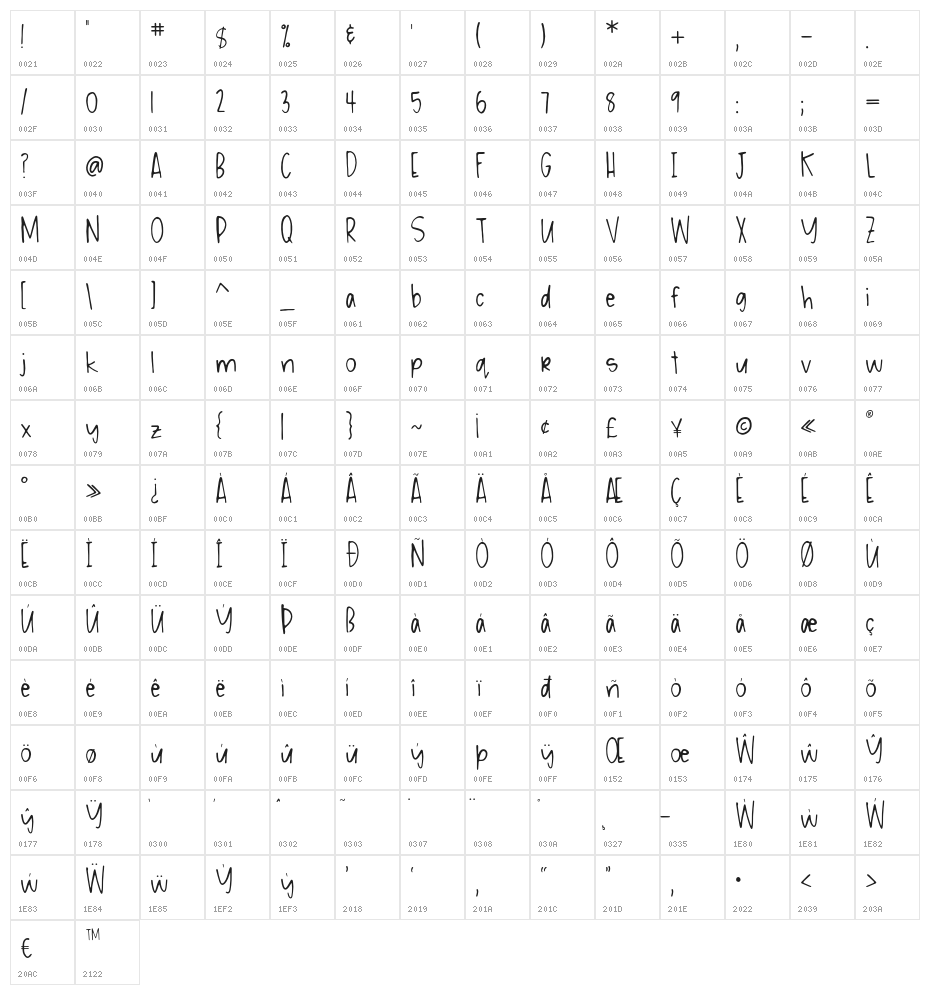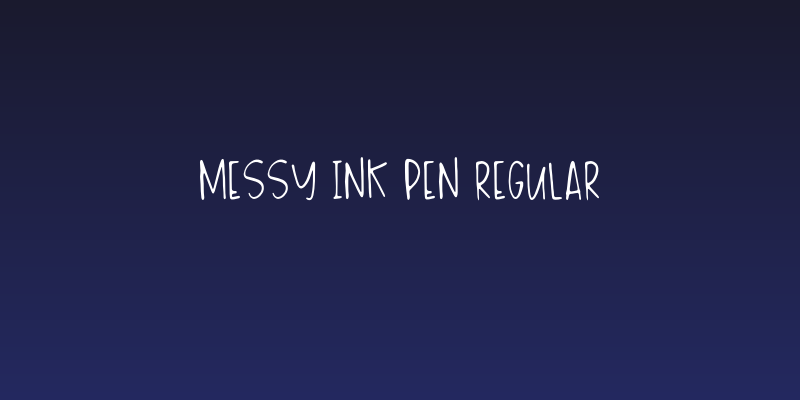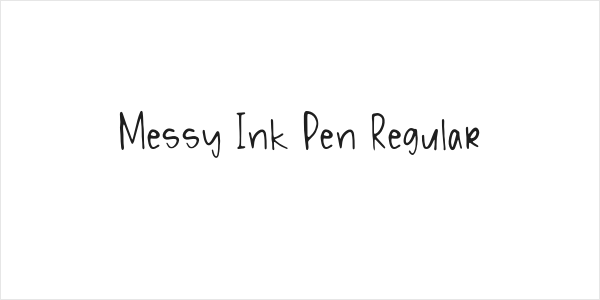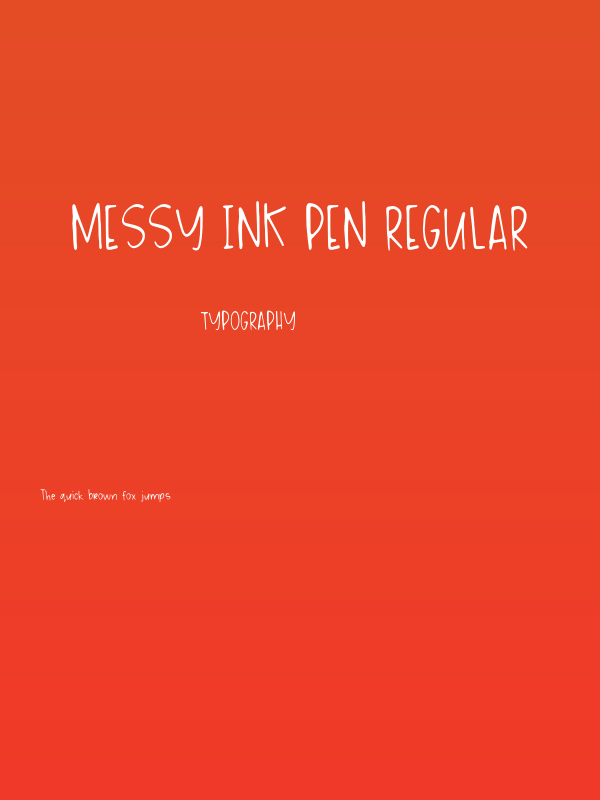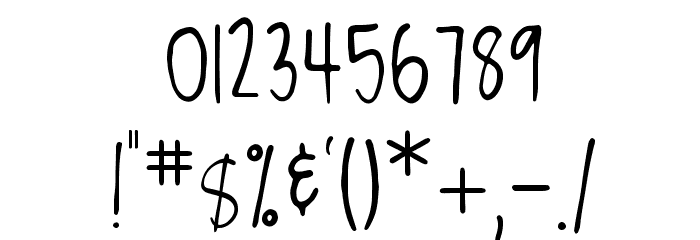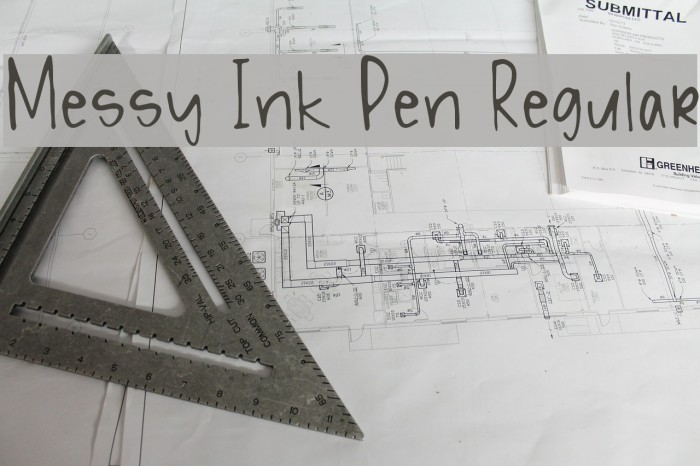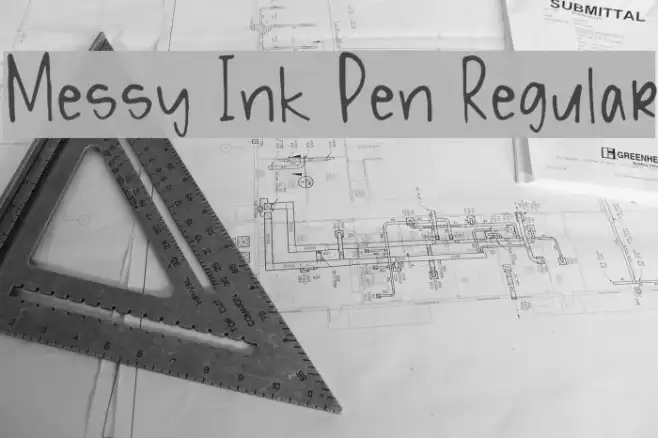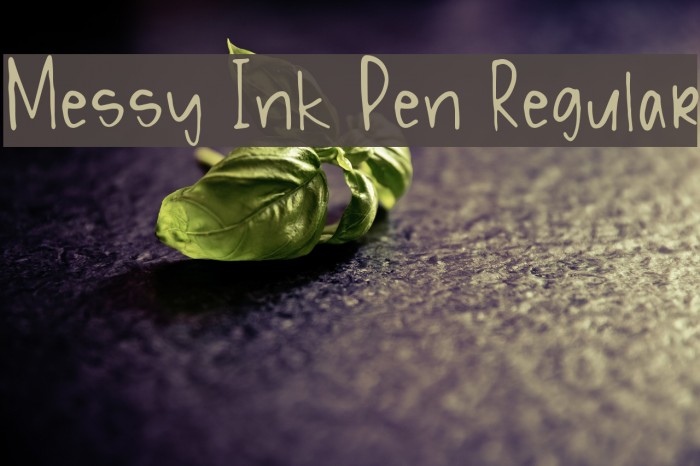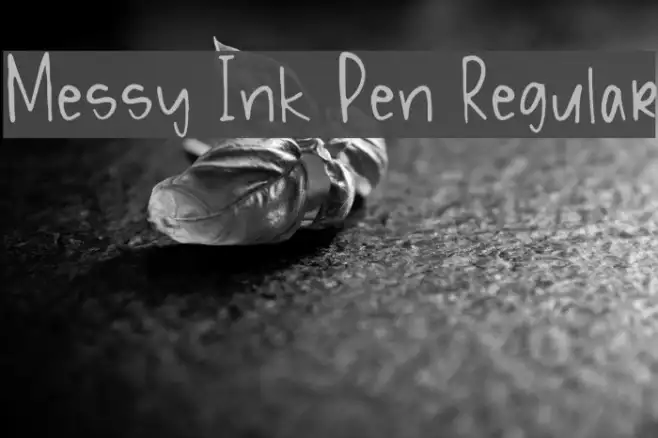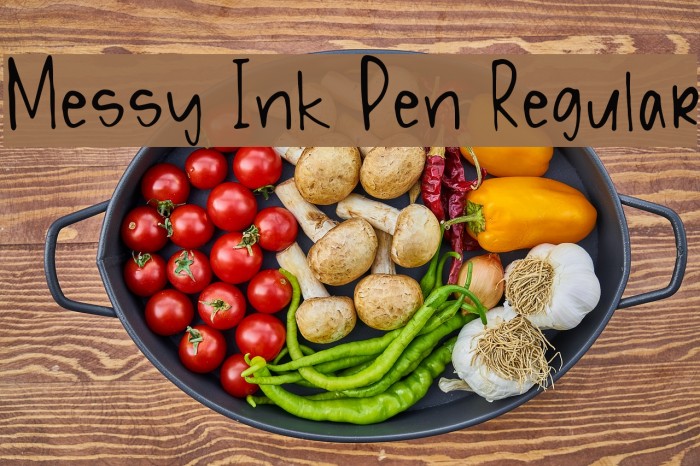
Messy Ink Pen Regular Font
Messy Ink Pen Regular Description
This font exudes a playful and informal vibe, reminiscent of handwritten notes with a slightly messy ink pen style. The characters are irregular and quirky, with varying stroke widths that give it a lively and dynamic appearance. The uppercase letters are tall and narrow, while the lowercase letters maintain a consistent height, adding to the casual feel. Numbers and special characters follow the same whimsical design, making the font suitable for creative and informal projects. The overall look is approachable and friendly, perfect for conveying a sense of spontaneity and personal touch.
| Proposed Projects | Ideal for greeting cards, children's books, casual invitations, and creative social media graphics. |